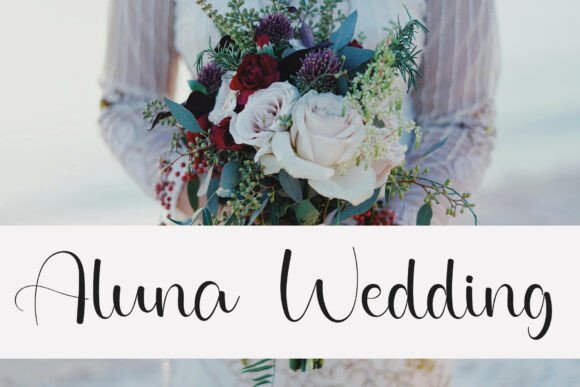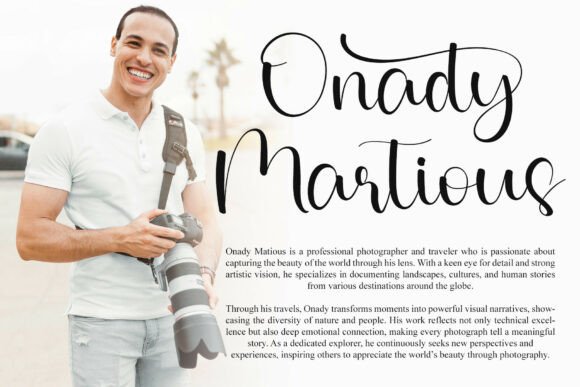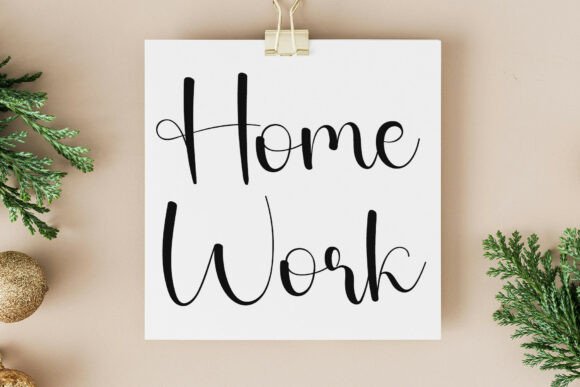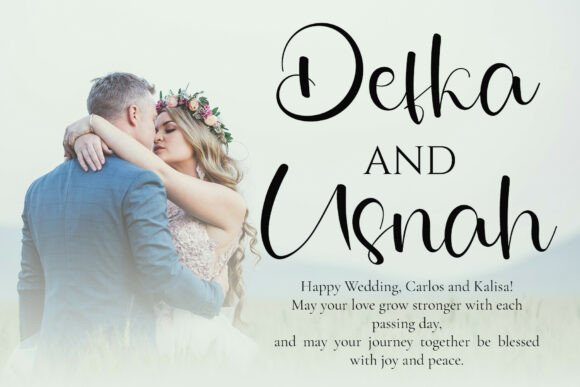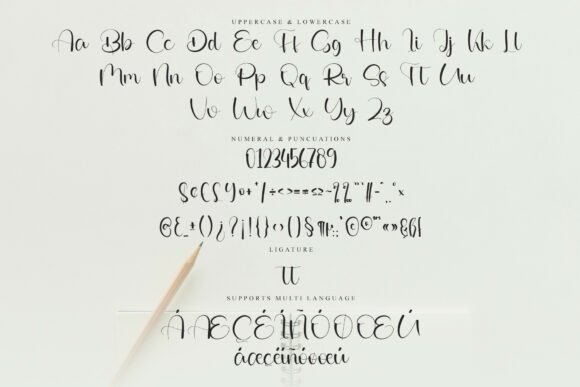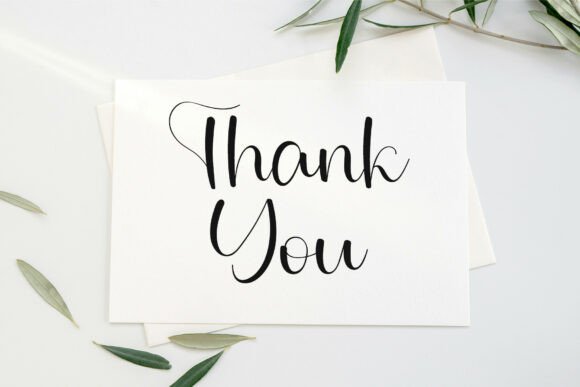
Introducing Cranky Font: The Epitome of Elegance and Timelessness
In the realm of typography, few fonts manage to strike a balance between elegance and boldness. Cranky Font is one such exceptional typeface that seamlessly merges the fluidity of script handwriting with the enduring appeal of vintage design. This unique blend results in a font that exudes class, making it an ideal choice for designers and crafters looking to create a sophisticated yet powerful impression.
The Beauty of Cranky Font
Cranky Font is characterized by its fluid strokes, graceful curves, and dynamic flow. These features collectively contribute to its distinctive appearance, setting it apart from more conventional fonts. The fluid strokes give Cranky Font a sense of movement and energy, while the graceful curves add a touch of sophistication and refinement. This combination makes it perfect for a wide range of applications, from stylish signatures and branding designs to nostalgic vintage aesthetics.
Perfect for Sophisticated Designs
Whether you’re a designer looking to create a lasting impression or a crafter seeking to add a touch of elegance to your projects, Cranky Font is an excellent choice. Its sophisticated appearance makes it suitable for:
- Branding Design: Use Cranky Font to create a unique and memorable brand identity that stands out from the competition.
- Signatures: Add a touch of elegance to your signatures, making them perfect for professional documents, artwork, or even personal stationery.
- Vintage Aesthetics: Create nostalgic designs that evoke a sense of timelessness and classic charm.
What Makes Cranky Font Stand Out
Several key features make Cranky Font a standout choice for designers and crafters:
- Unique Blend of Styles: Cranky Font combines the beauty of script handwriting with a bold and timeless vintage touch, making it a versatile choice for various design projects.
- Elegance and Uniqueness: The font delivers elegance and uniqueness effortlessly, ensuring your designs leave a lasting impression.
- Dynamic Flow: The dynamic flow of Cranky Font adds a sense of energy and movement to your designs, making them more engaging and captivating.
Tips for Using Cranky Font Effectively
To make the most of Cranky Font, consider the following tips:
- Pair with Complementary Fonts: Combine Cranky Font with simpler fonts to create visual interest and hierarchy in your designs.
- Experiment with Colors: Play with different colors to find the perfect match for your design, taking into account the font’s vintage and elegant feel.
- Pay Attention to Spacing: Ensure adequate spacing between letters and lines to maintain the font’s elegance and readability.
Cranky Font is a remarkable typeface that offers the perfect blend of elegance, boldness, and timelessness. Its unique features make it an excellent choice for designers and crafters looking to create sophisticated and powerful designs. Whether you’re working on branding, signatures, or vintage-inspired projects, Cranky Font is sure to deliver a lasting impression. With its fluid strokes, graceful curves, and dynamic flow, this font is a versatile tool that can elevate your designs to new heights.
So, why settle for ordinary fonts when you can make a statement with Cranky Font? Explore its possibilities and discover how it can add a touch of class and uniqueness to your designs.